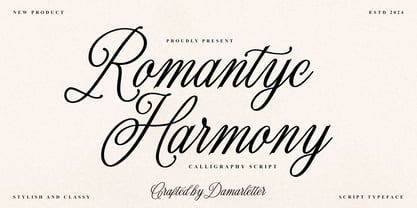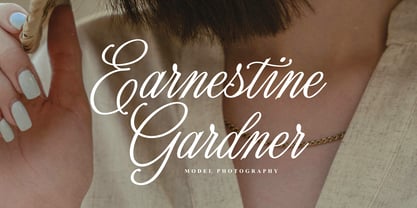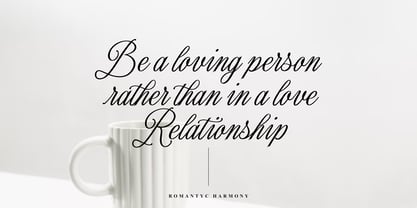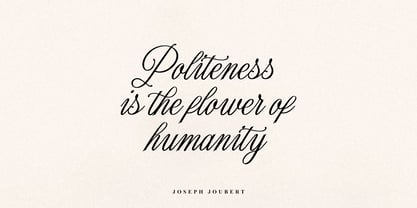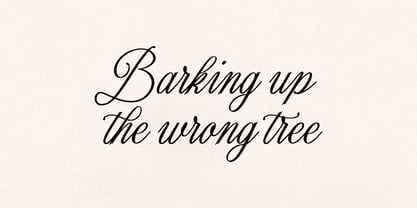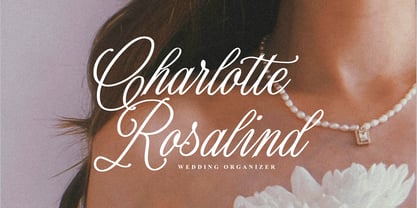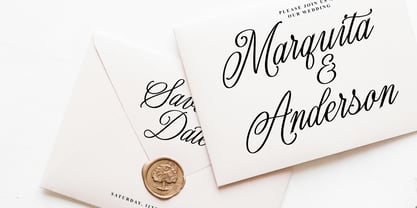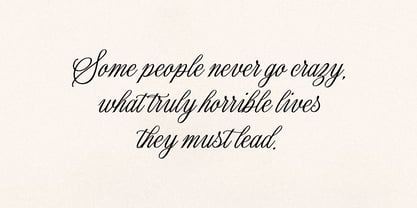
Romantyc Harmony
by Damarletter
The Romantyc Harmony Font Family was designed by Ardian Nuvianto and published by Damarletter. Romantyc Harmony contains 1 styles.
Romantyc Harmony is an exquisite copperplate calligraphy script typeface that embodies elegance, grace, and timeless beauty. With its delicate strokes, refined curves, and classic calligraphic style, this font is the perfect choice for projects that demand sophistication and charm. From luxurious wedding invitations to upscale branding, Romantyc Harmony adds an air of romance and refinement to any design.